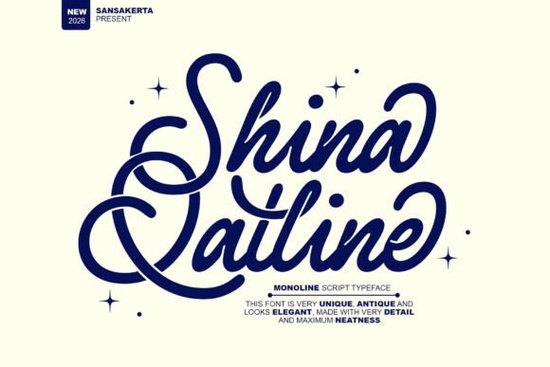
If you're looking for a script font that feels both luxurious and approachable, Shina Qatline Font is worth a closer look. This elegant monoline script blends vintage charm with modern clean lines, making it a versatile choice for designers, crafters, and small business owners. Whether you're working on wedding invitations or a logo for a beauty brand, this typeface can give your project a polished, handcrafted feel.
What makes Shina Qatline different from other script fonts?
Many script fonts lean heavily into either vintage or modern styles, but Shina Qatline sits somewhere in between. Its monoline weight keeps the letters uniform, so it reads clearly even at smaller sizes. The flowing curves and balanced letterforms give it a signature look without being too fussy. That means it works just as well for a digital social media graphic as for a printed packaging label.
If you've tried other script fonts that felt too thin or too decorative, Shina Qatline offers a good middle ground. For a similar aesthetic with a slightly more playful touch, you can also check out the You Are My Rainbow font. Both fonts share that elegant cursive style, but Shina Qatline brings a more subdued, professional tone.
How can designers use this font in real projects?
Shina Qatline fits naturally into a range of creative work. Its refined look makes it ideal for logo design, especially for brands that want a sense of sophistication without feeling stiff. Wedding stationery, save-the-dates, and thank-you cards also benefit from the font's smooth flow and readability.
For print-on-demand sellers, this font can be a go-to for product labels, mugs, t-shirts, and wall art. It pairs well with simple layouts and neutral color palettes. If your brand leans toward feminine or luxury aesthetics, Shina Qatline can anchor that identity without overpowering it.
Common project types that suit Shina Qatline
- Branding and logo design – especially for boutiques, beauty brands, and lifestyle coaches.
- Wedding and event invitations – its soft curves match romantic themes.
- Packaging and product labels – works well on cosmetics, candles, and gourmet food items.
- Social media graphics – quote cards, mood boards, and Instagram stories.
- Fashion and apparel – think brand tags, lookbooks, and embroidered logos.
Does Shina Qatline pair well with other fonts?
Yes. Because it's a monoline script, it doesn't compete with serif or sans-serif typefaces. A simple pairing with a clean sans serif (like a geometric or humanist style) keeps the focus on the script. For a more decorative look, you can combine it with a chunky display font. For example, the Chunky Font offers a bold contrast that can make your headlines pop.
If you need a script with a different personality, Willow Font gives a more organic, hand-drawn vibe. And for a modern casual feel, Palm Bay Social Font is another solid option. All these styles can be mixed into a single brand toolkit depending on the context.
Is it easy to read for longer text?
This font is designed primarily for display use. For headlines, quotes, and short paragraphs you'll see great readability. But for body copy at very small sizes, some of the tighter letterforms might feel a bit dense. Stick to 14pt and above for best results. If you need a more readable script for long-form content, consider pairing it with a simpler font for the main text.
Practical tips for using Shina Qatline in your next design
- Try it on a dark background with white or gold lettering – the contrast makes the curves stand out.
- Use it sparingly. Let the font be the hero in your layout rather than competing with too many elements.
- Test it on product mockups before printing. The monoline weight keeps it legible even slightly scaled down.
- Combine with subtle textures, like paper grain or a soft shadow, to enhance the vintage feel.
Next step: Try it on a real project
The best way to see if Shina Qatline fits your style is to download it and test it on your own design. Sketch out a logo, set a wedding headline, or create a social media template. Most script fonts need a little practice to see how they behave with different spacing. Shina Qatline is forgiving and polished, making it a safe choice for designers who want elegance without complication.
Start small: pick one project you're working on right now and see how Shina Qatline handles it. You might be surprised how much character a single font can add.